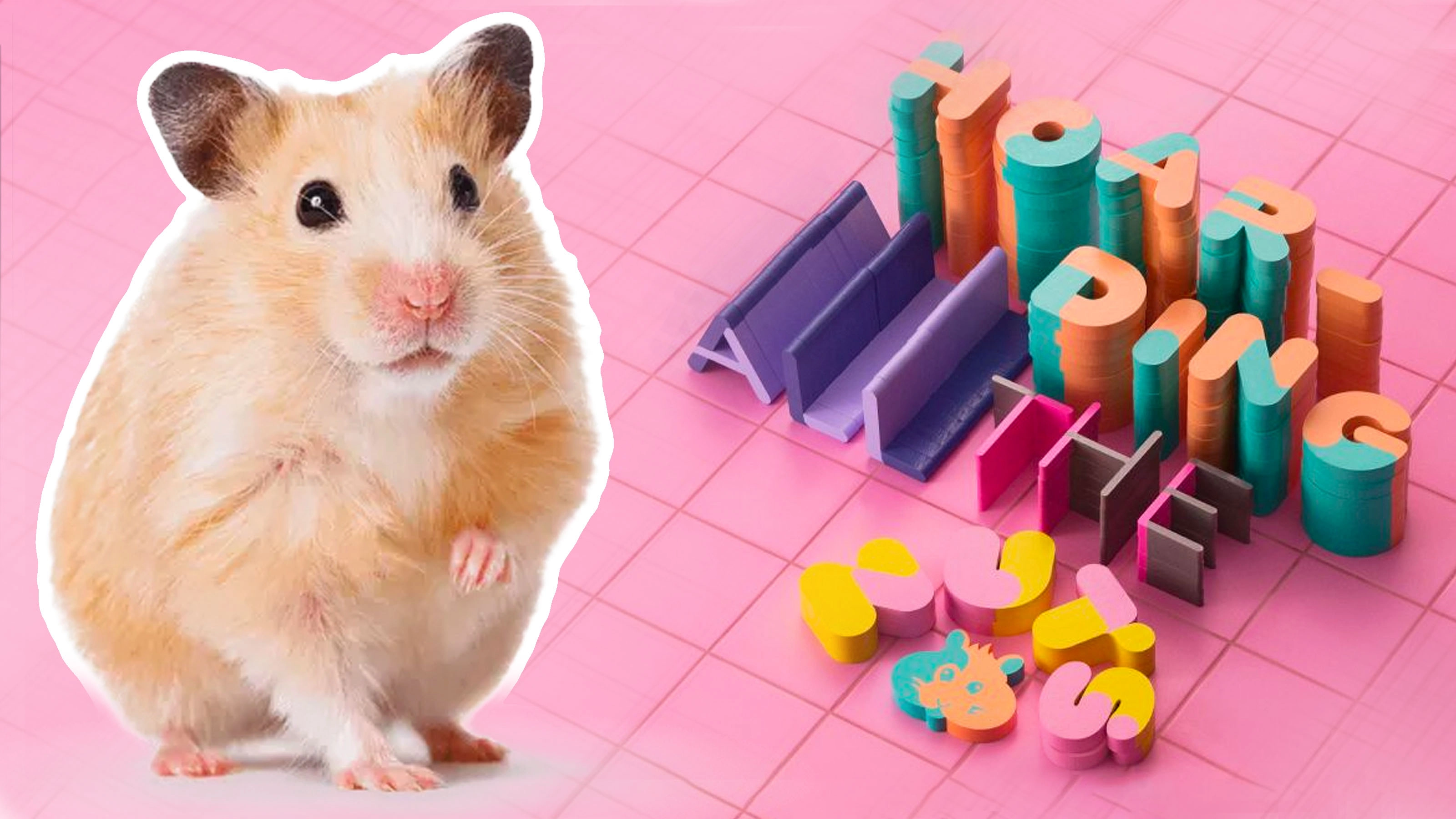
This vibrant typeface is inspired by your childhood hamster
If you're on the hunt for a new font full of charm that will make you go "aw", I think I've found the perfect match. It is said that inspiration can come from anywhere – and this new typeface is inspired by your childhood hamster.
Designed by Joe Stitzlein, Hamster is a colourful and quirky typeface bursting with charm and I can't get enough of it. From vibrants pastels to a charming rounded shape, it feels incredibly nostalgic and child-like (in the best way possible). Looking for other fun fonts for your creative projects? Check out the best free fonts for some more inspiration.
But why is the typeface called Hamster? If you owned a one when you were younger (a hamster, not a typeface), you probably remember those vibrant neon plastic cages that housed your tiny fuzzy friend. These cages are the inspiration for the fonts colourful shade pairings, and the rounded edges and two-tone colouration is also meant to be reminiscent of a hamster's chubby cheeks and fur – overall, the whole font is incredibly charming.